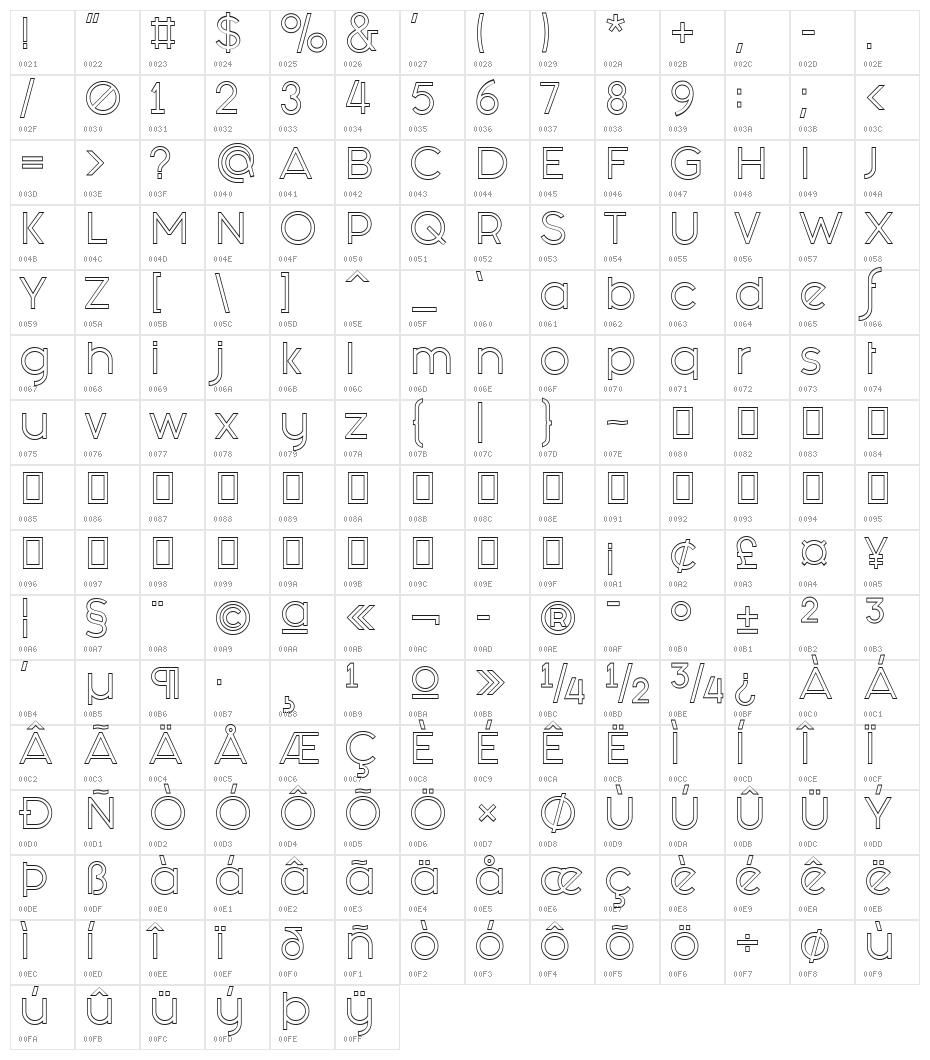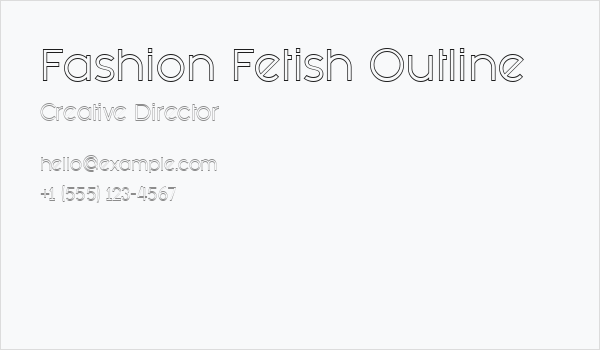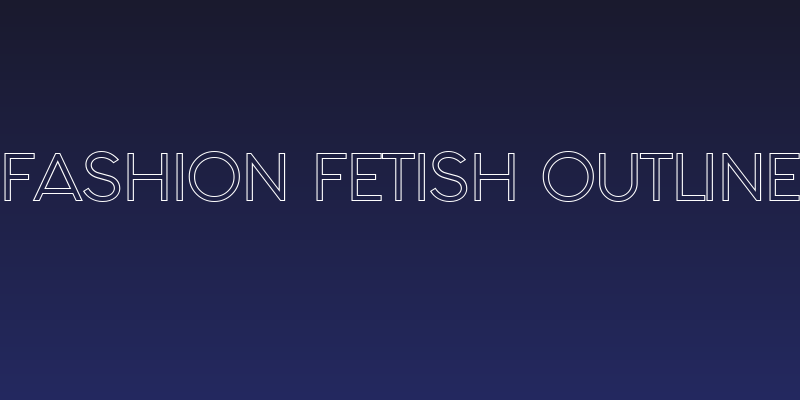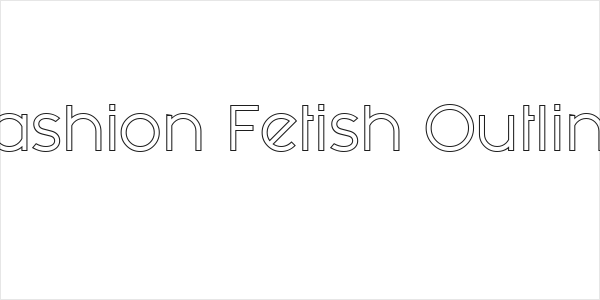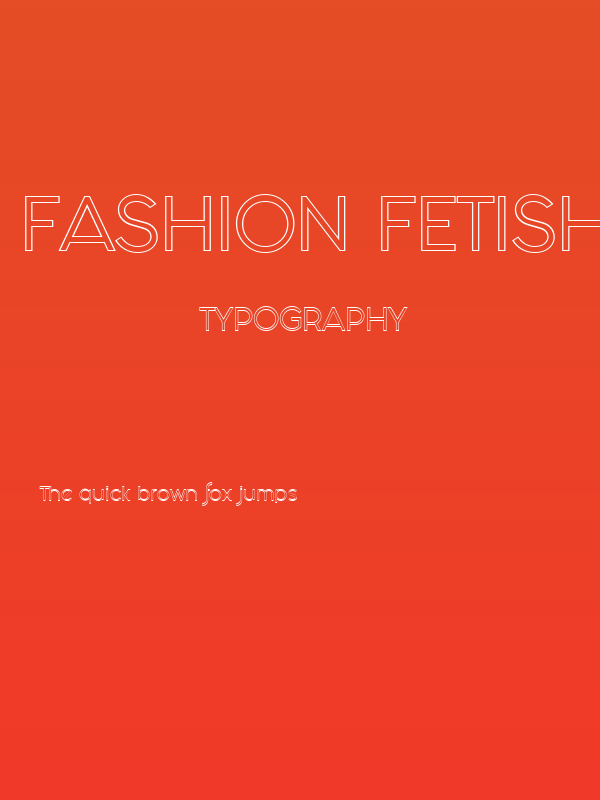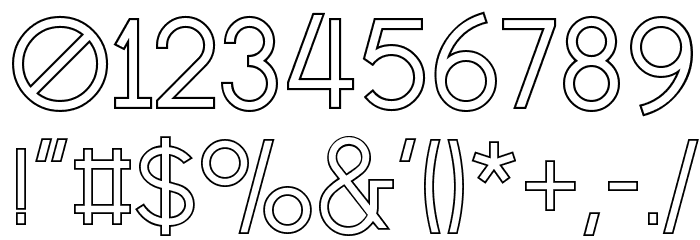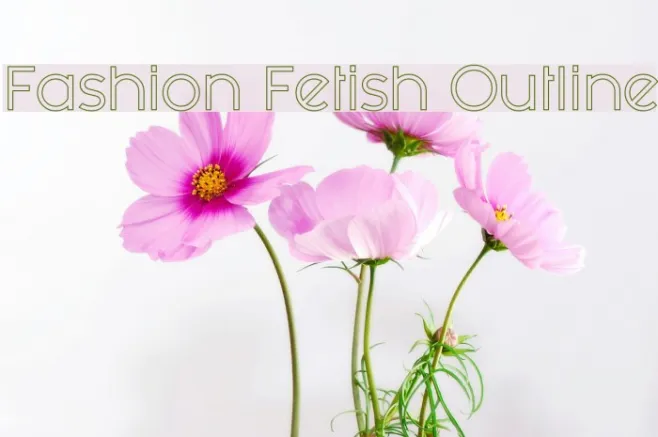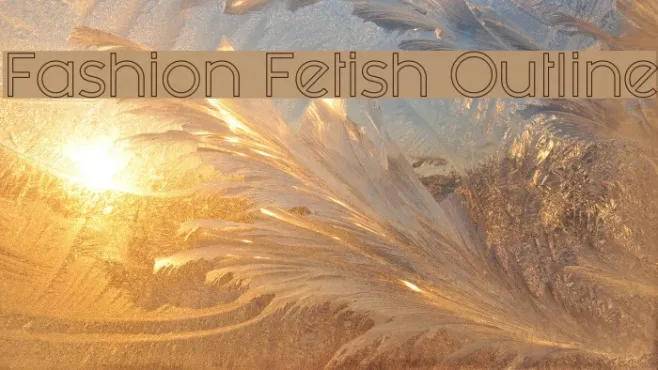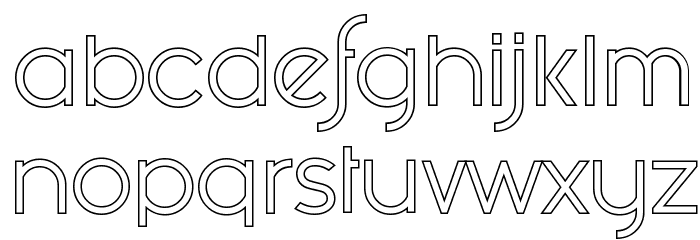
Fashion Fetish Outline Font
| Proyectos propuestos | Ideal for fashion branding, editorial design, posters, and digital media where a modern and stylish look is desired. |